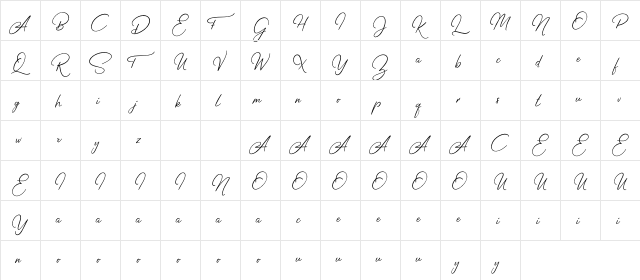
Elysian Script
Design Context for Elysian Typeface
Elysian flows with the natural rhythm of handwritten lettering, making it ideal for designs that call for warmth and personal expression.
Font Pairing: Combine Elysian with a simple geometric sans for maximum contrast — the tension between flowing curves and clean structure is a classic typographic pairing.
Pro Tip: Use Elysian for short runs of text — names, titles, or taglines. Extended body copy in script faces tires the eye quickly.